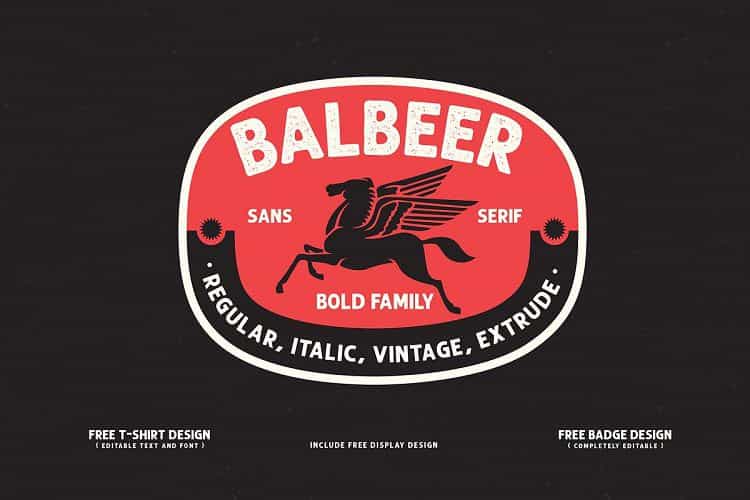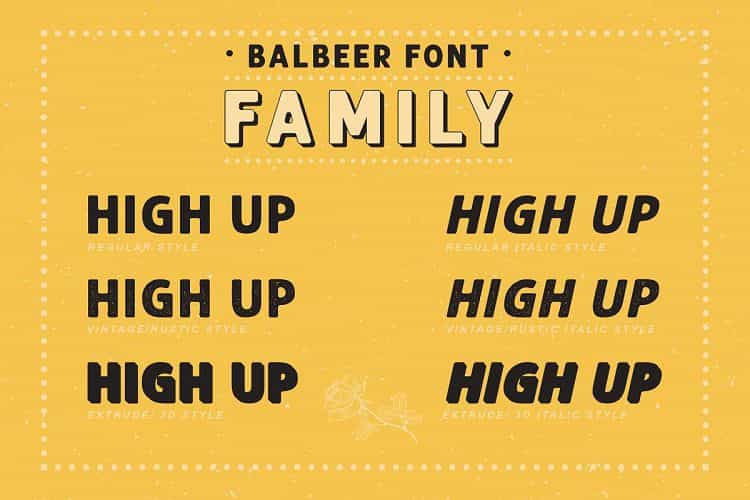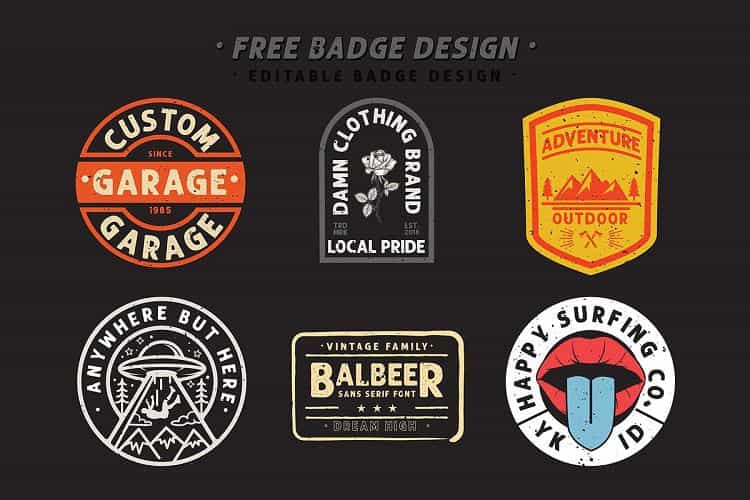
Introducing Balbeer Typeface. It is suitable for headlines, posters, branding, packaging, presentations, logo designings , quotations and their titles in magazines web layouts advertising invitations.